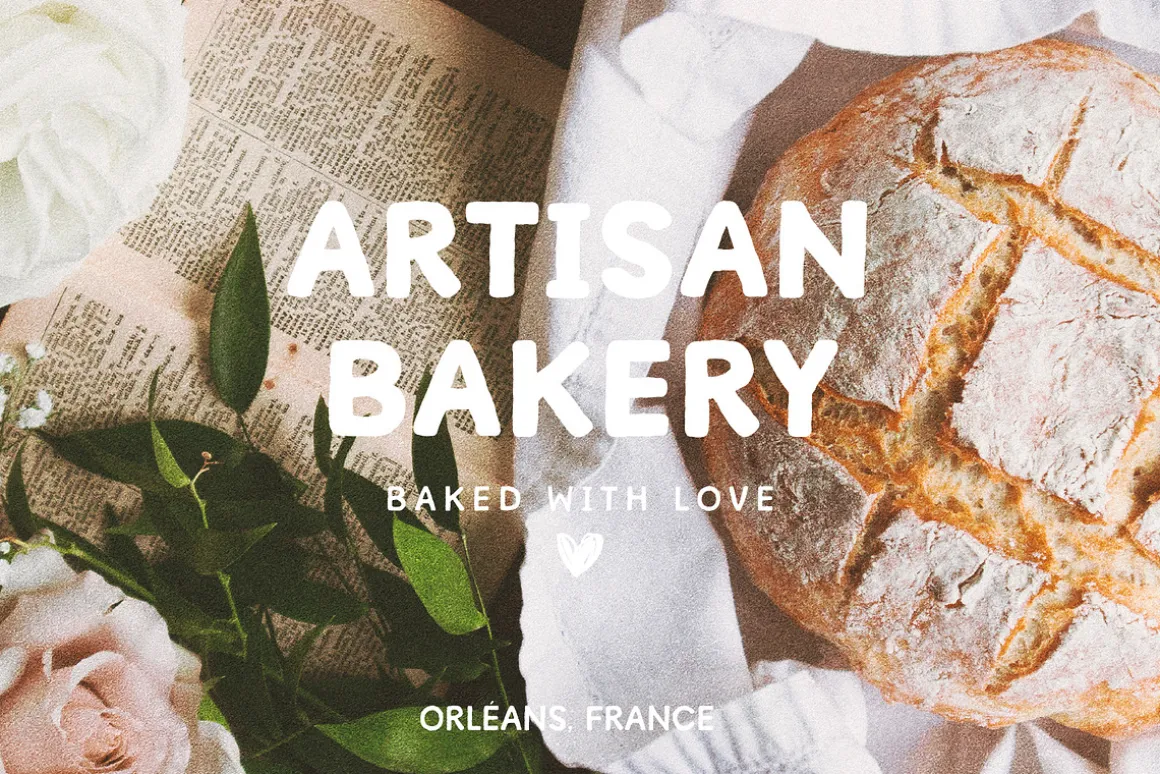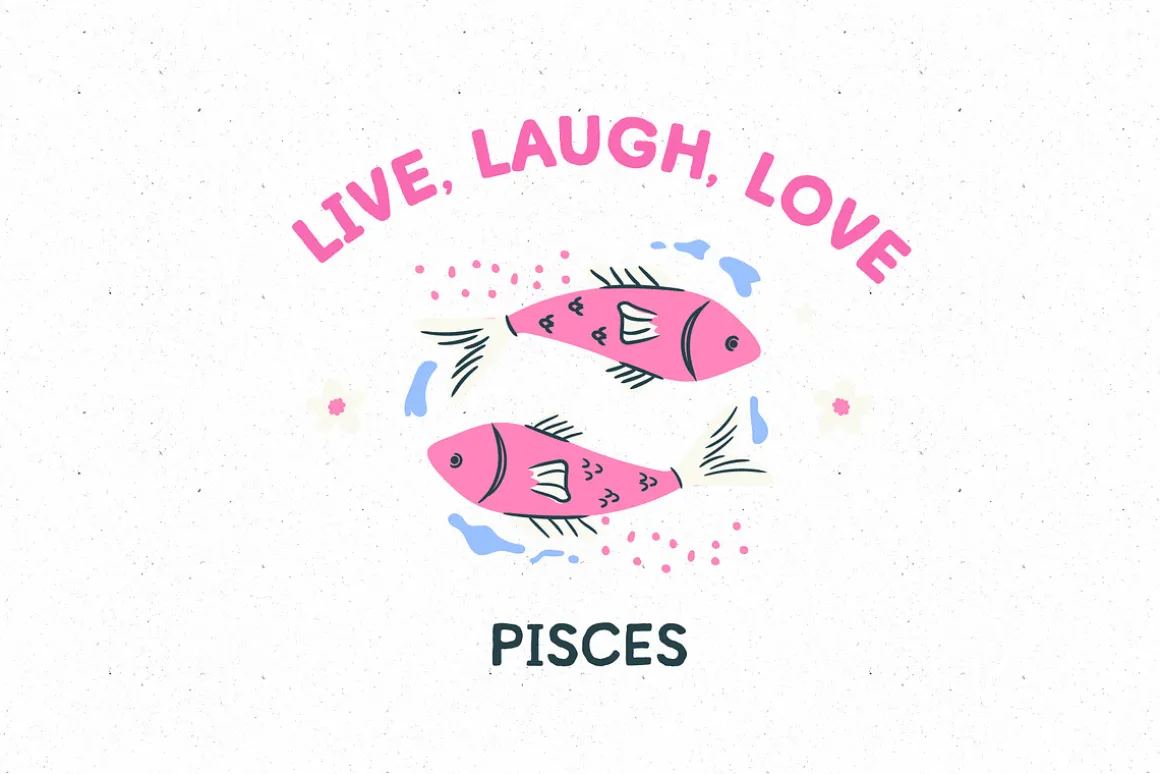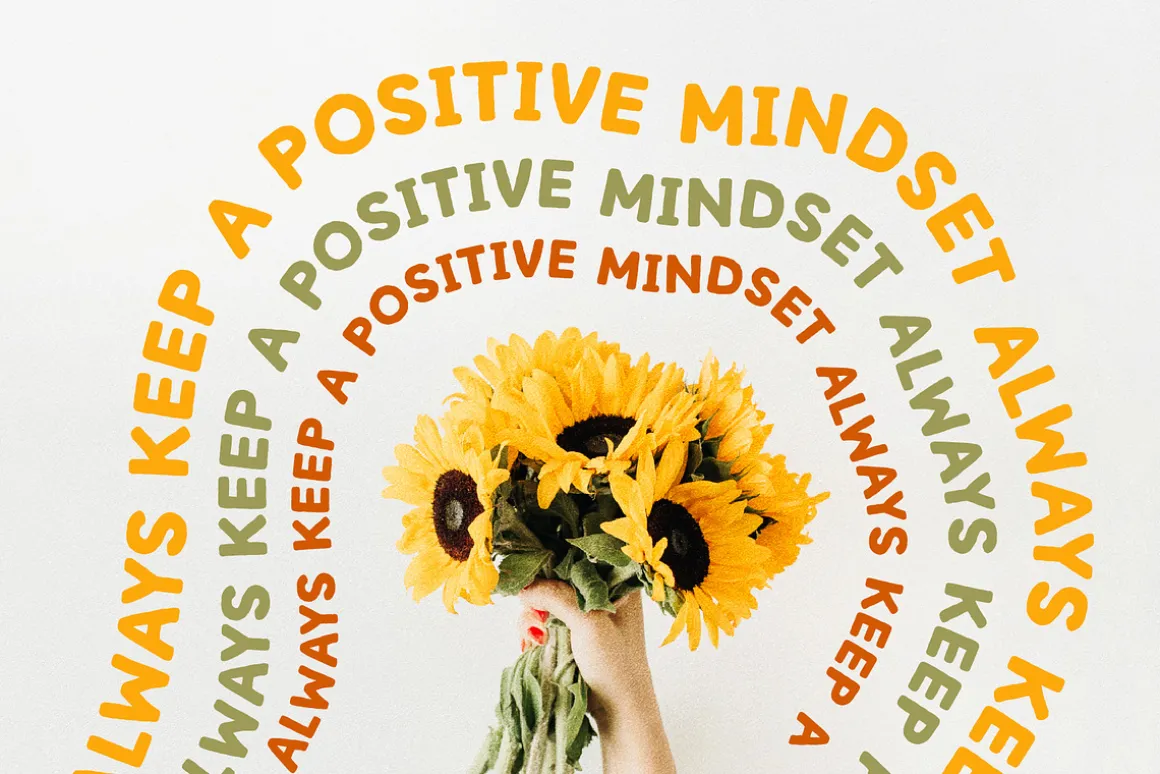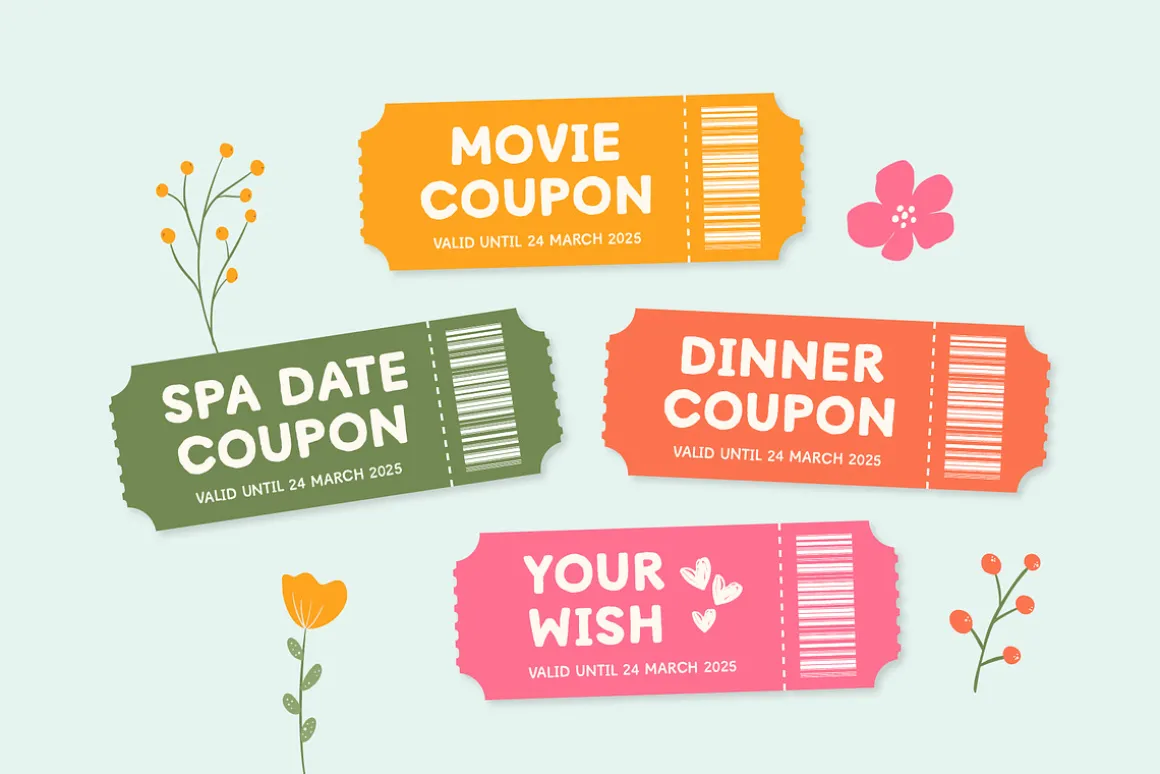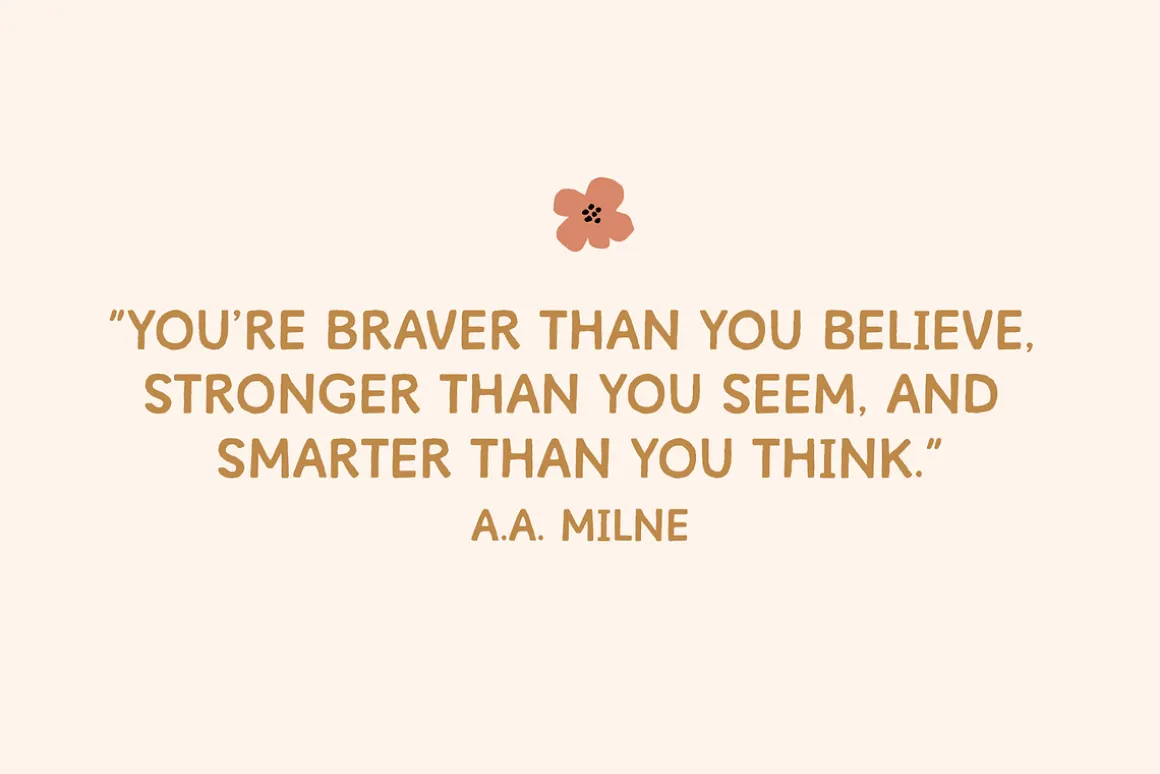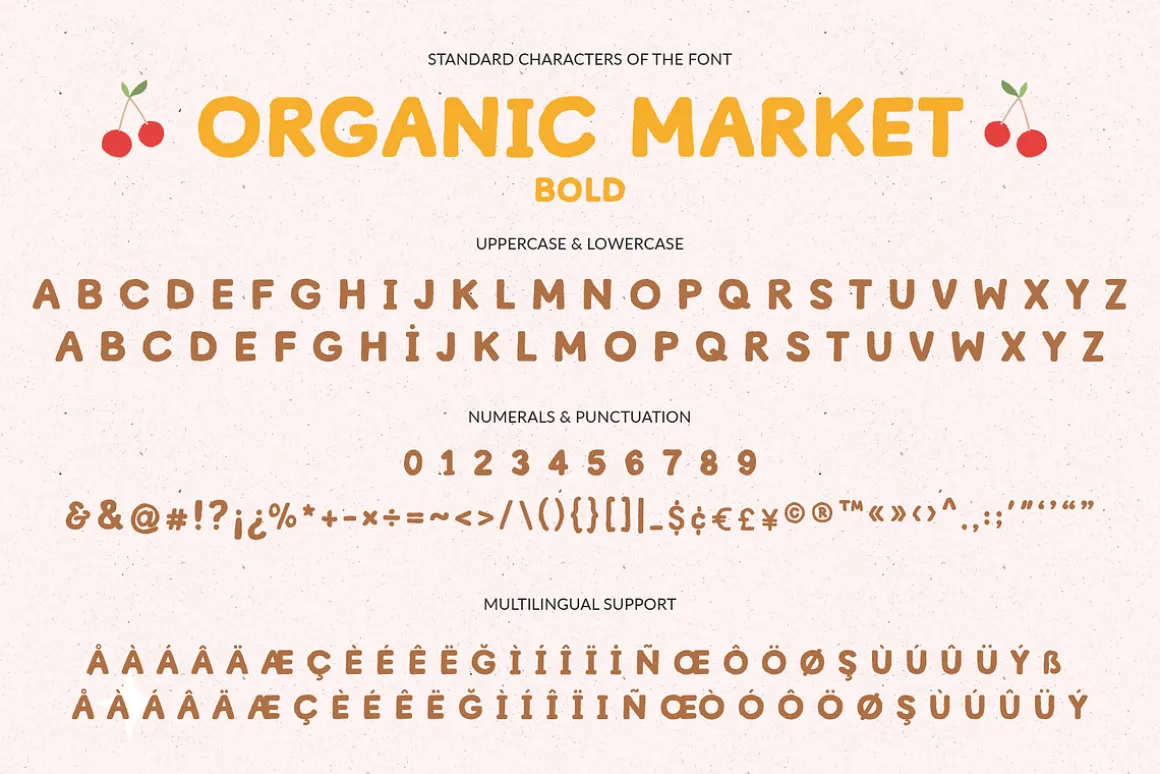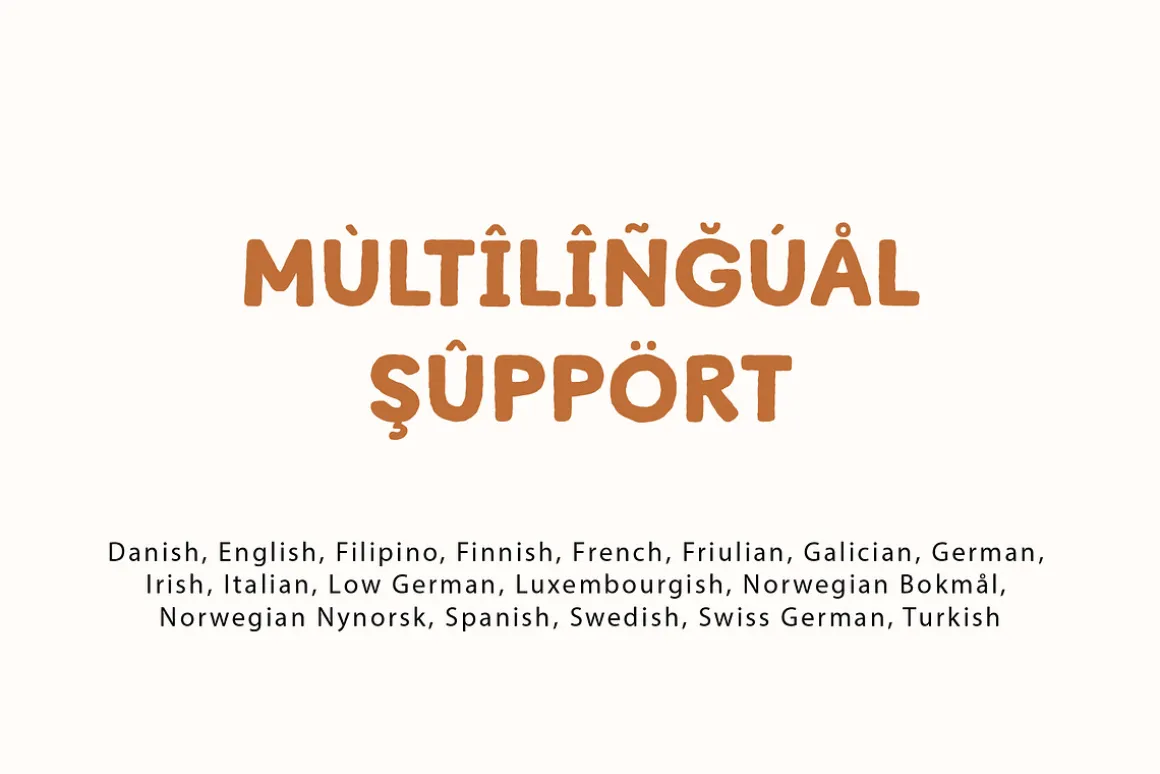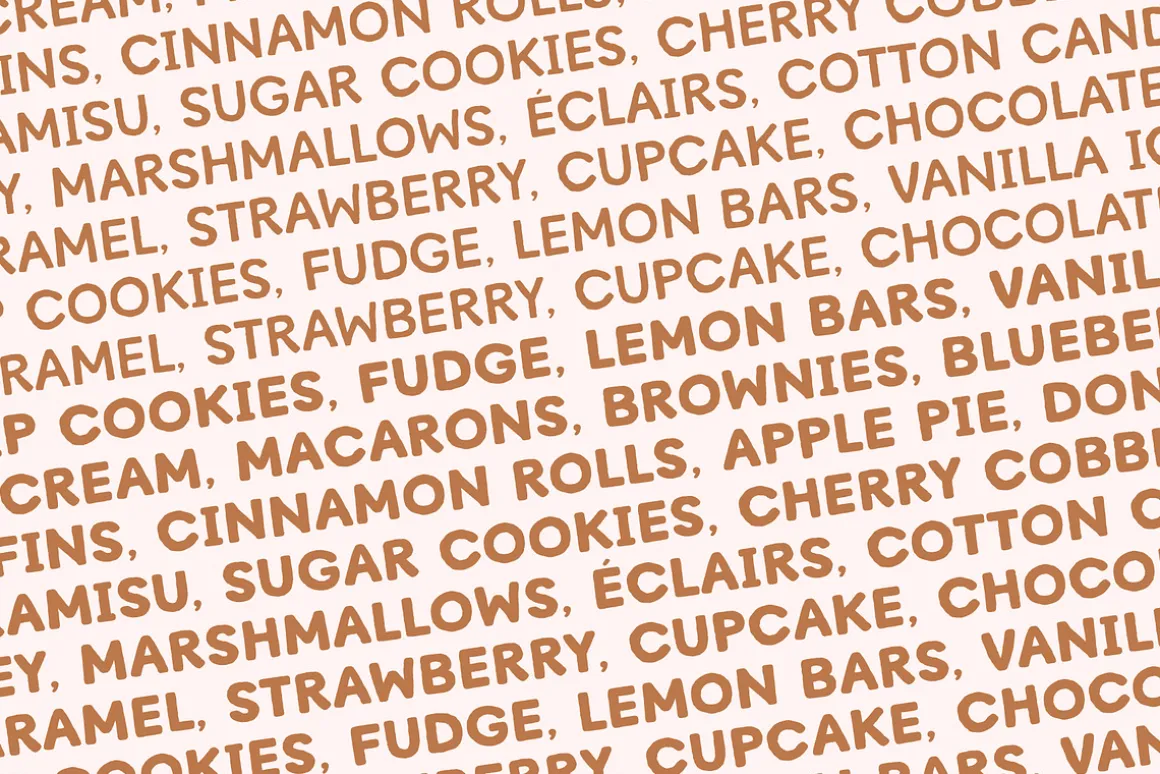
Introducing Organic Market – a charming handmade font that captures the essence of artisanal craftsmanship. Available in Regular and Bold styles, this font showcases a delightful, imperfect aesthetic that brings a warm, inviting feel to any text.Perfect for branding, posters, invitations, craft projects, greeting cards, social media or any project that needs a splash of authenticity and fun.
• All caps characters (2 sets of A-Z)
• Numbers, punctuation, symbols
• Supported Languages: Danish, English, Filipino, Finnish, French, Friulian, Galician, German, Irish, Italian, Low German, Luxembourgish, Norwegian Bokmål, Norwegian Nynorsk, Spanish, Swedish, Swiss German, Turkish